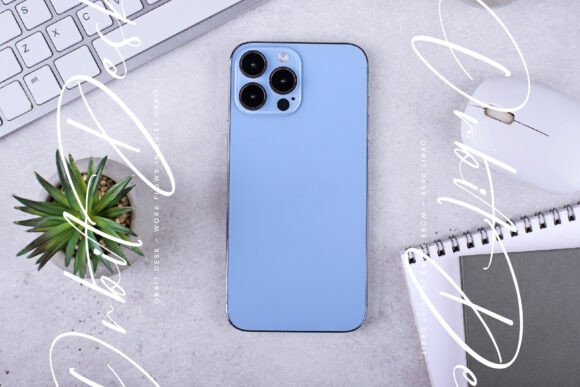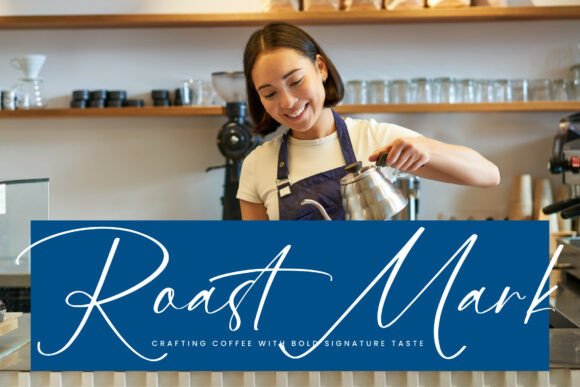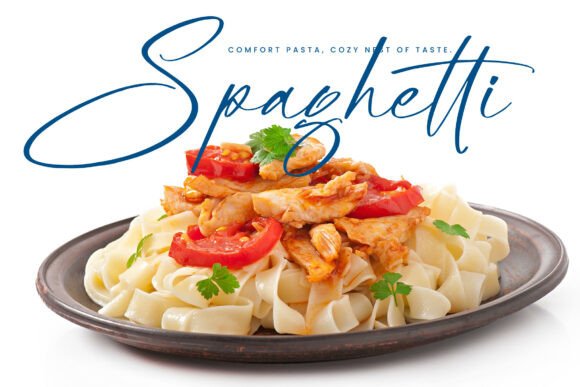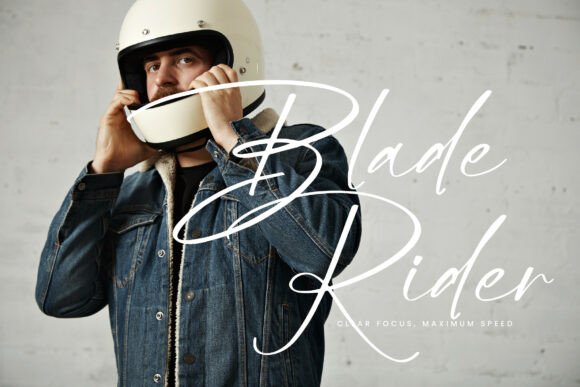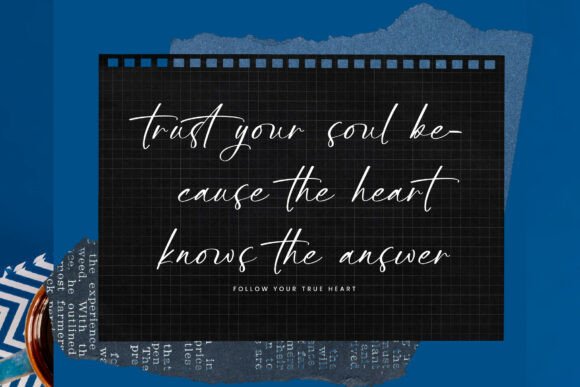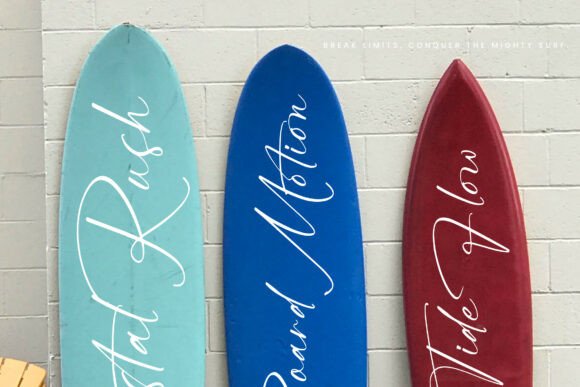
Introduction to Prestiges Enternals Font
Prestiges Enternals is a refined signature-style script font that combines fluid strokes with a fashionable aesthetic.
Ideal for personal branding, modern logos, classy quotes, and social media graphics, this font adds a luxurious, handcrafted touch to any design Available in regular and italic with multilingual support.